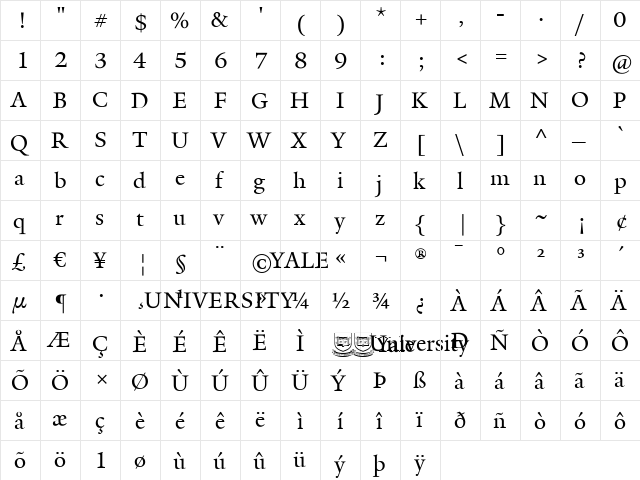
YaleAdmin Regular
| Foundry | Carter & Cone Type Inc |
Design Context for YaleAdmin Typeface
YaleAdmin offers clean, dependable letterforms without strong stylistic allegiance, making it a practical choice for designers who need flexibility.
Pro Tip: Pair YaleAdmin with a font of contrasting weight or personality to build a more expressive typographic hierarchy.